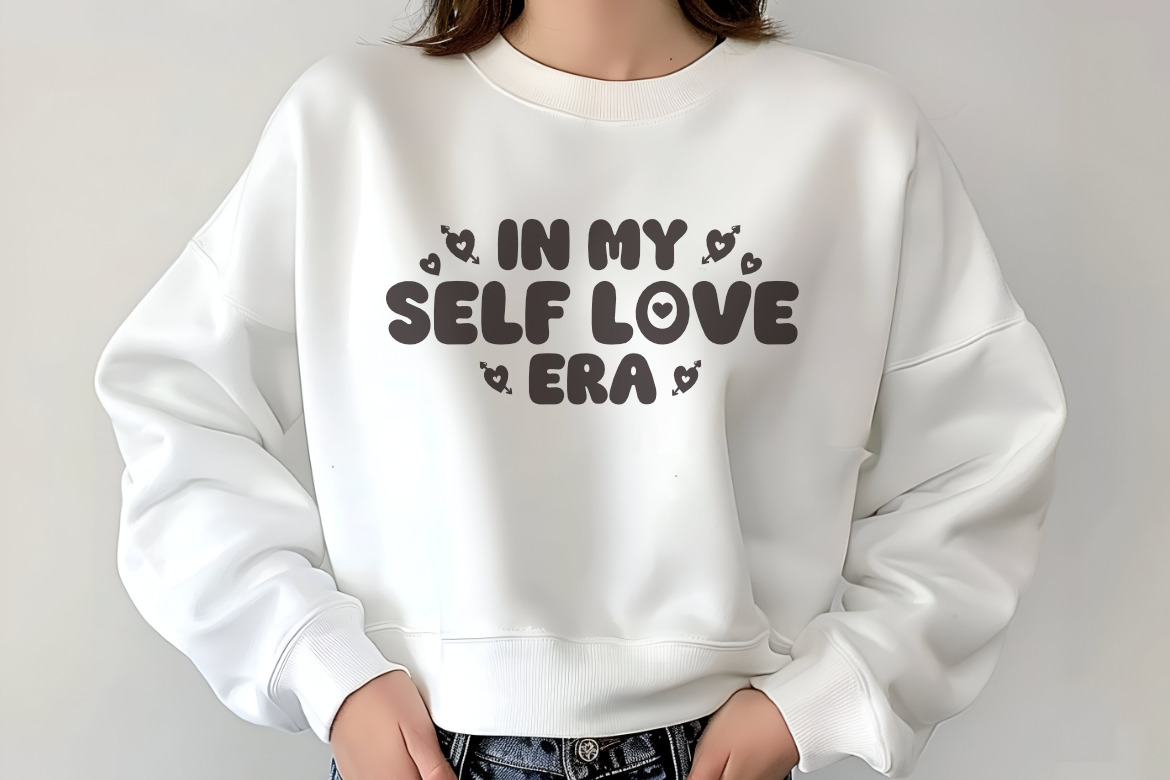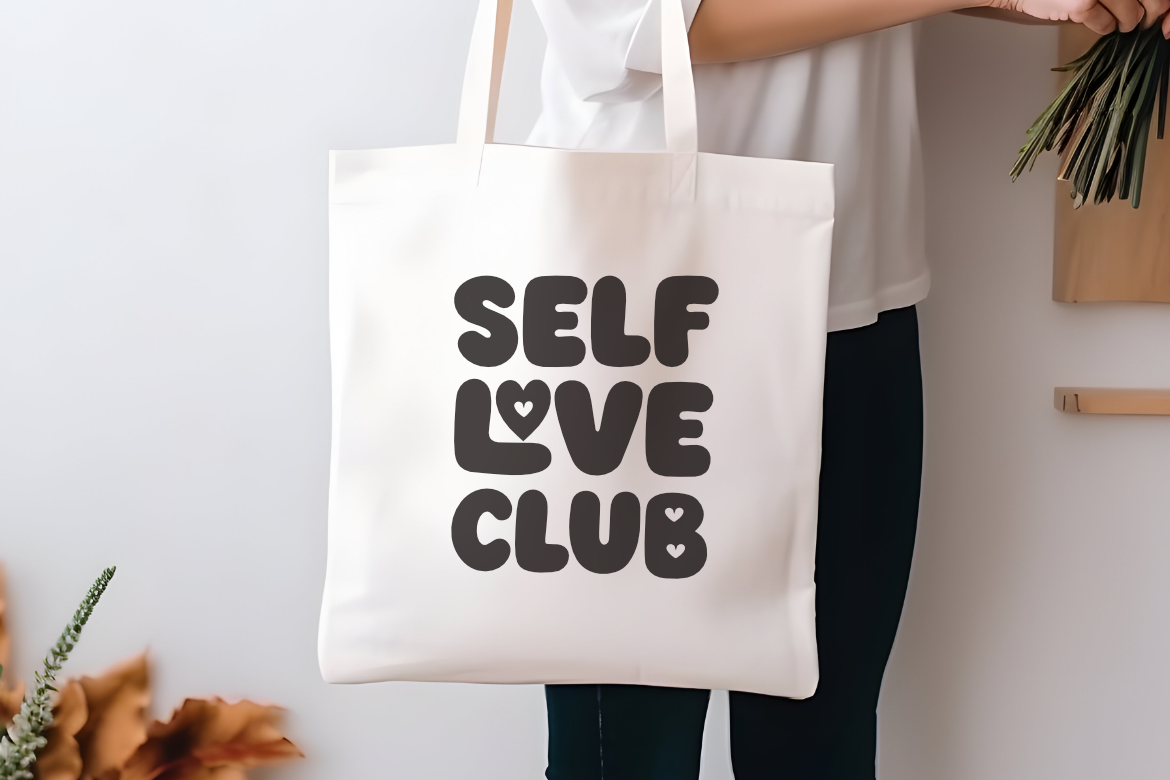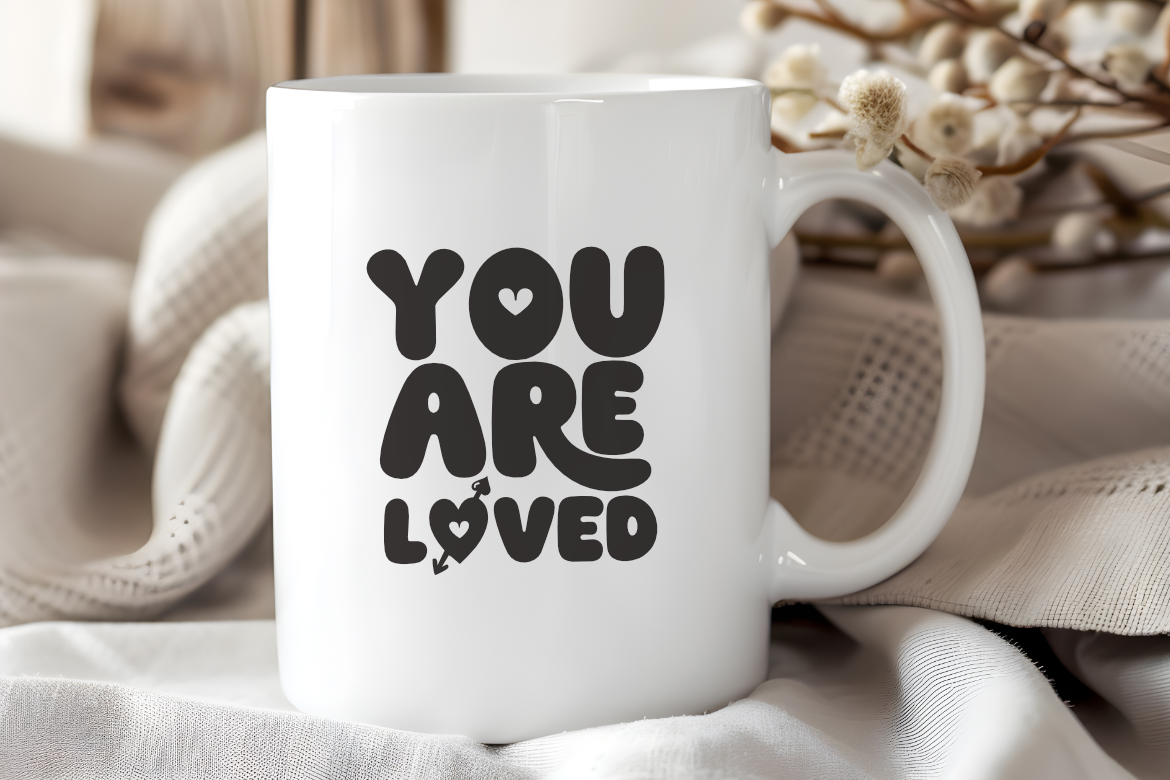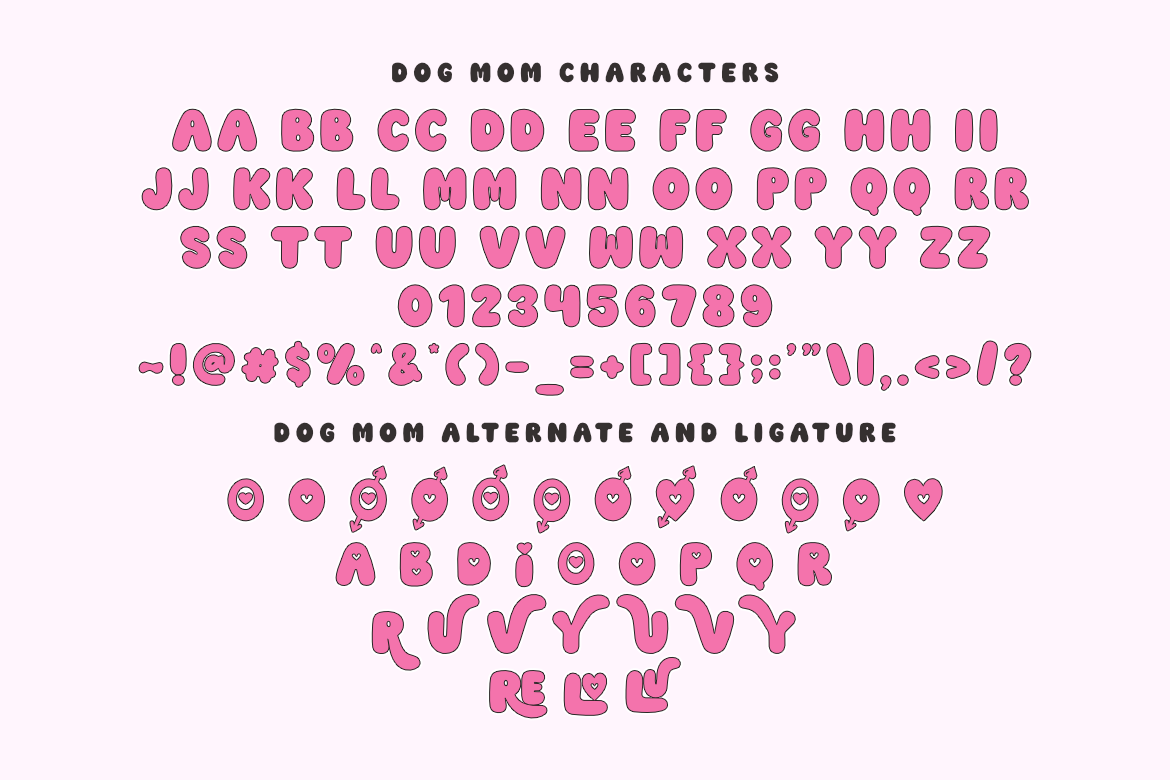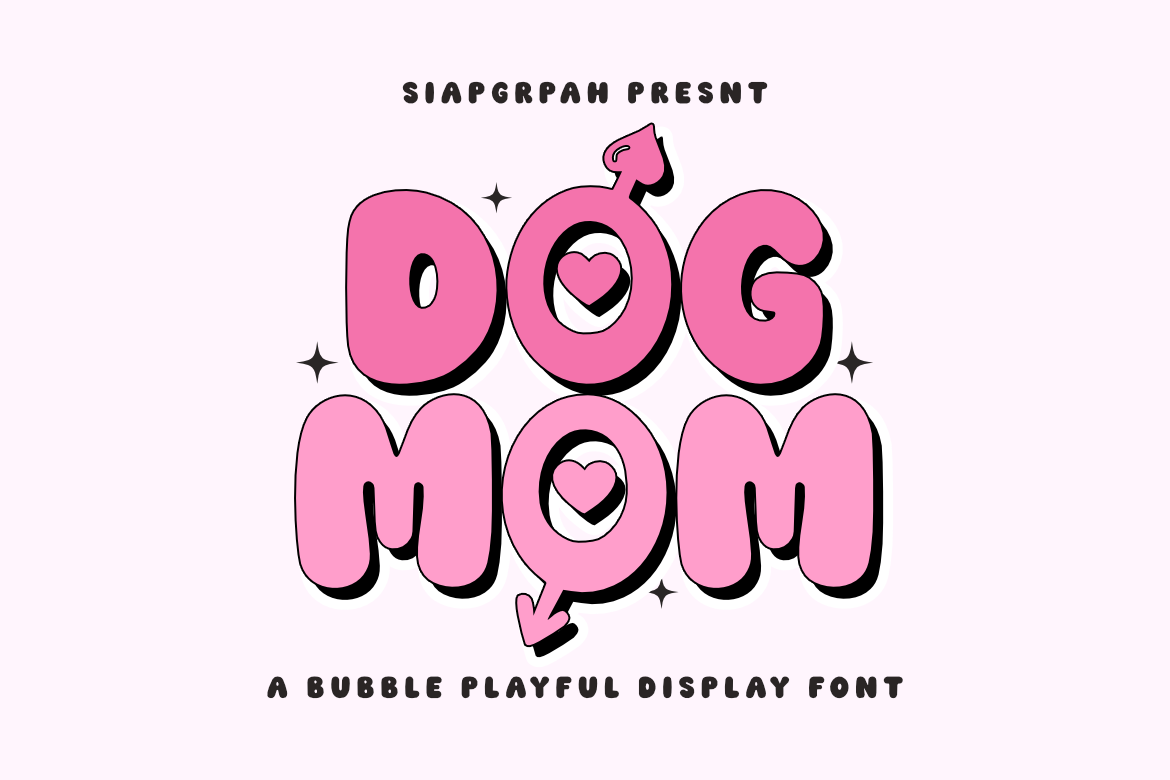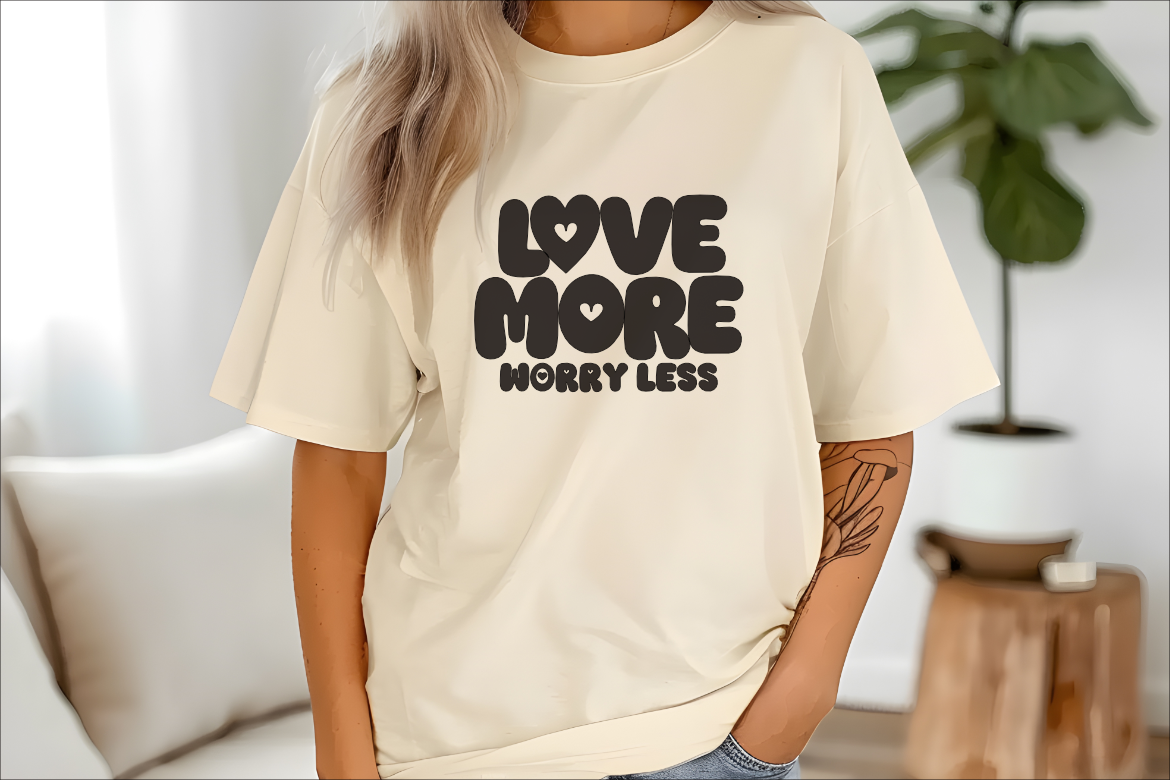
Dog Mom - Fun Bubble Font for Cricut and Sublimation
Bring your ideas to life with Dog Mom, a charming and cute bubble font that exudes playfulness! Its soft curves and bold appearance are perfect for creating eye-catching headlines, posters, social media graphics, and branding. Add a dreamy touch to your designs with this delightful font that’s both fun and versatile.